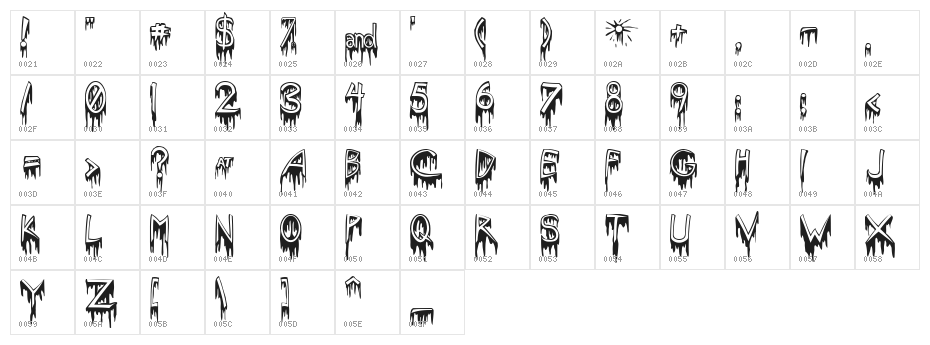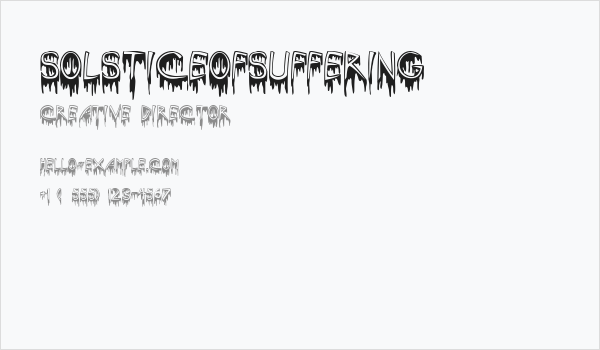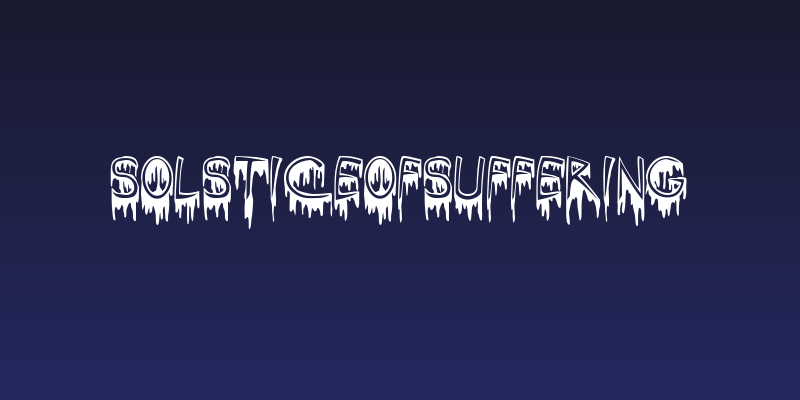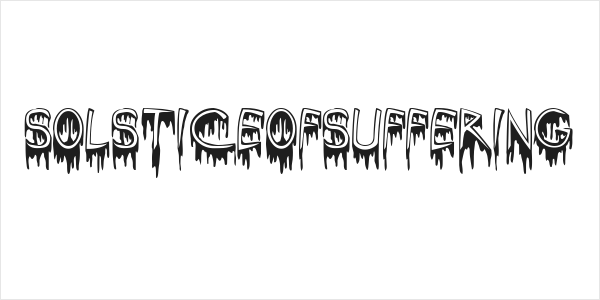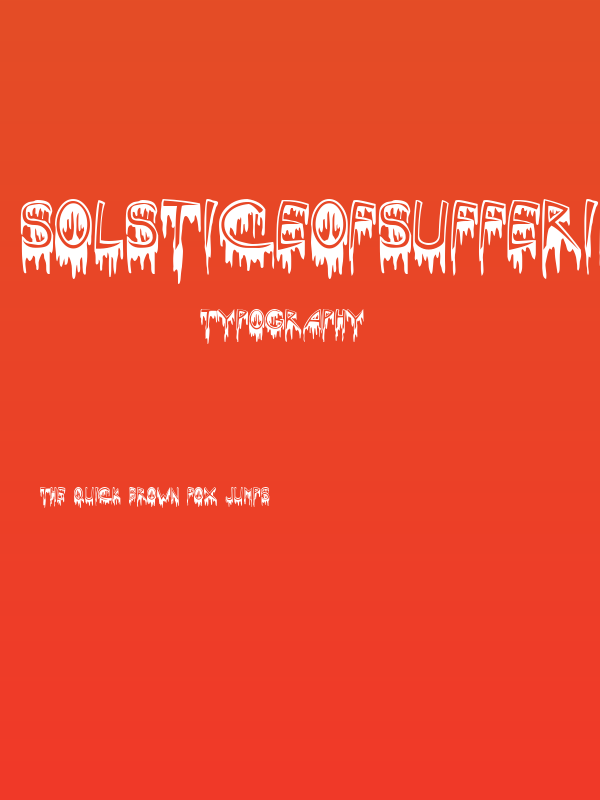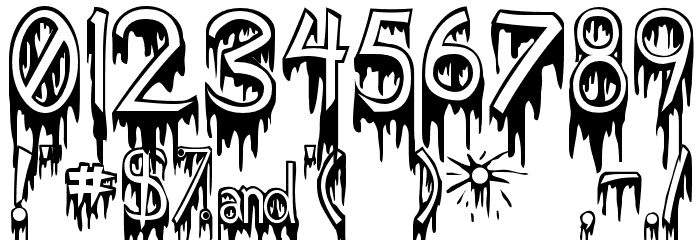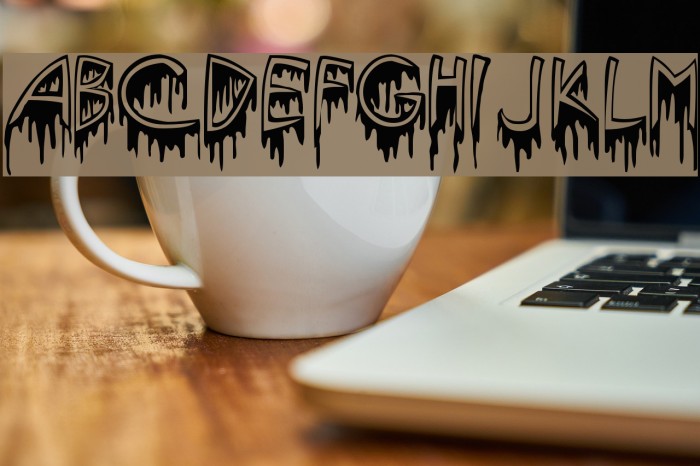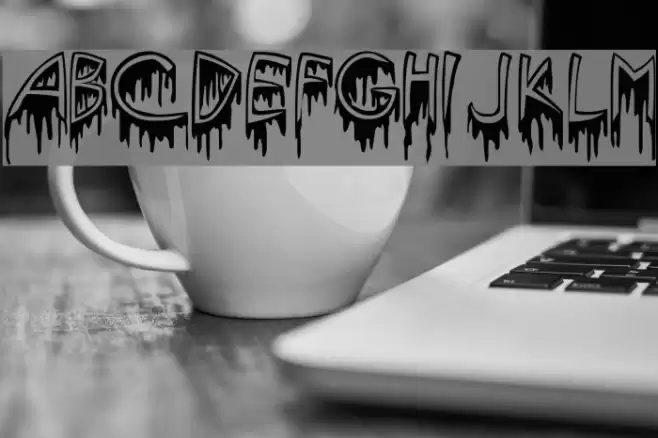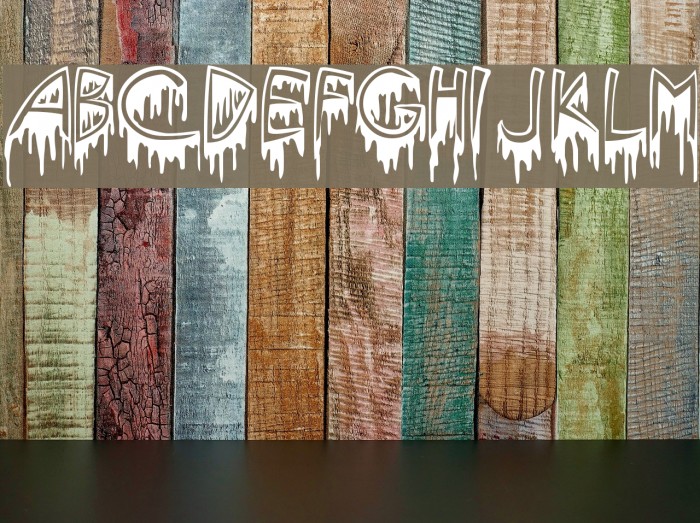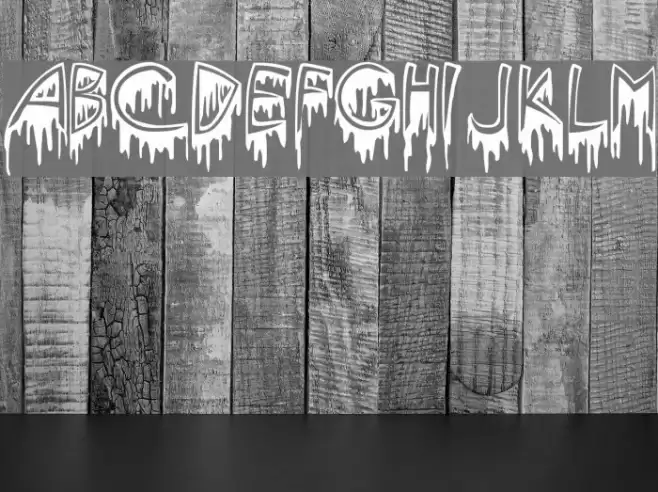
SolsticeOfSuffering Font
SolsticeOfSuffering Description
This font features a dripping, melting effect that gives it a horror or Halloween-themed appearance. The characters are bold and have a unique, decorative style with exaggerated drips that extend downward, creating a sense of movement and fluidity. The uppercase and lowercase letters maintain a consistent design, with each character appearing as if it is melting or oozing. The numbers and special characters follow the same theme, adding to the cohesive look of the font. This font is perfect for creating eye-catching headlines or themed graphics that require a spooky or eerie vibe.
| Proposed Projects | Ideal for Halloween posters, horror movie titles, themed party invitations, and spooky event branding. |